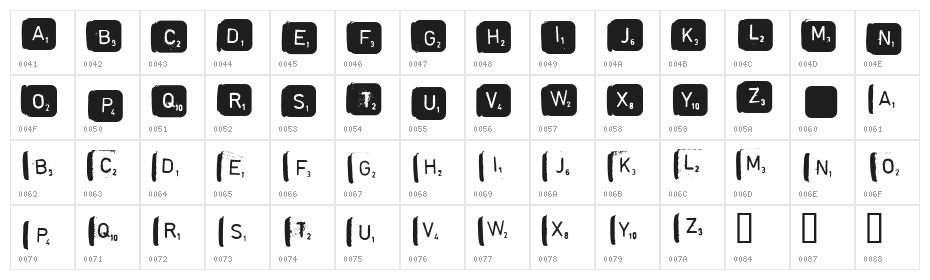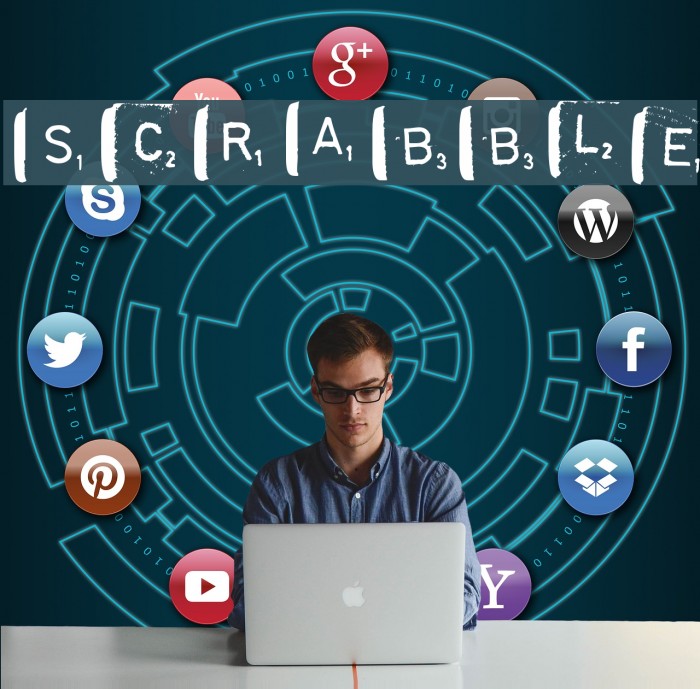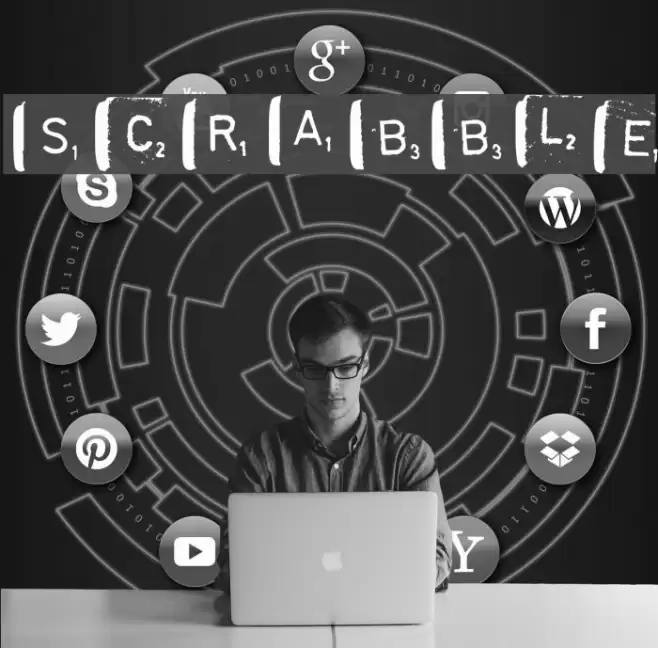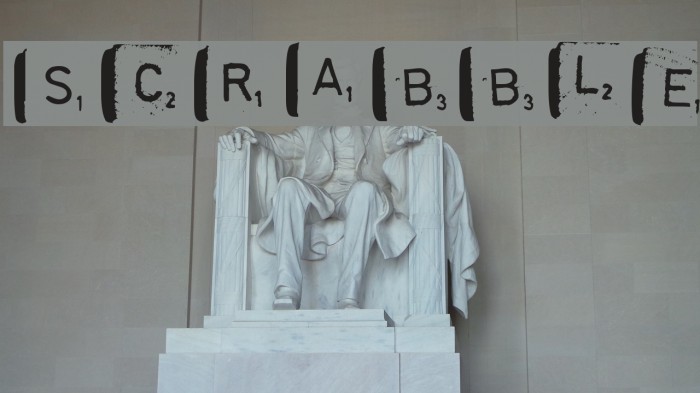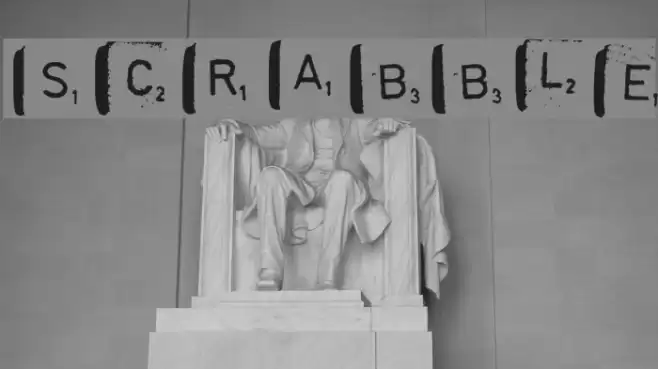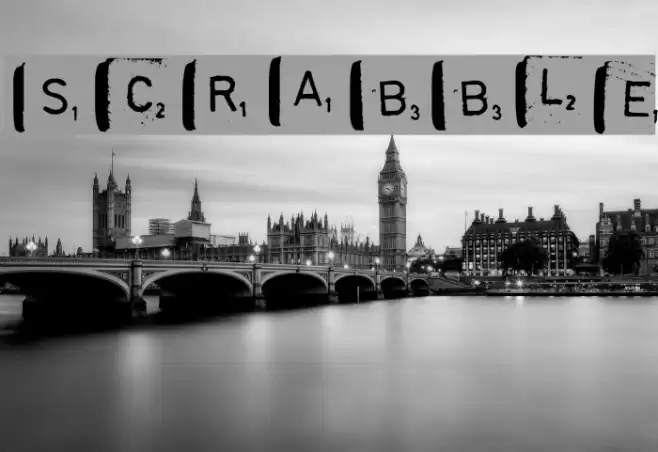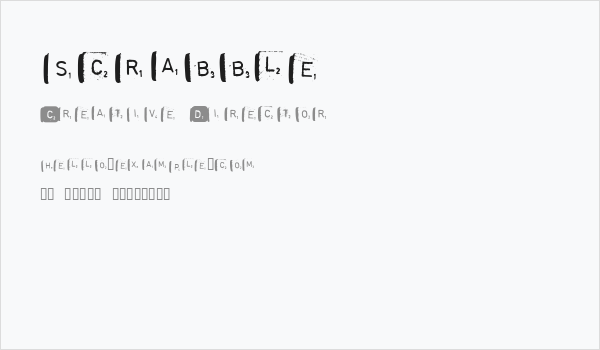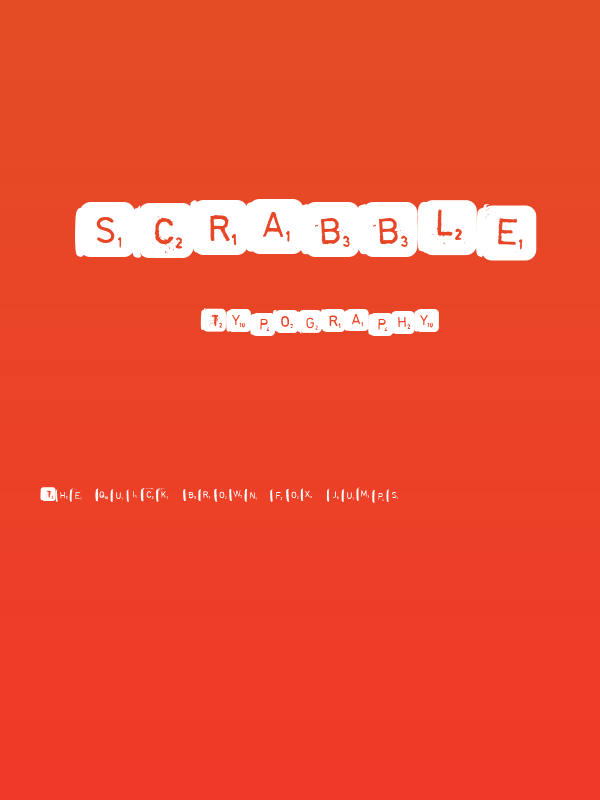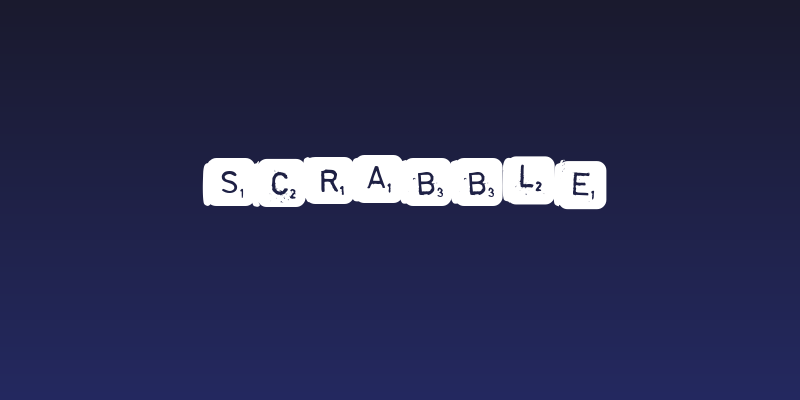
scrabble Font
scrabble Description
This font is inspired by the classic board game tiles, featuring bold, uppercase letters with a distinct, playful style. Each character is enclosed in a square, reminiscent of the game pieces, with a number indicating the point value in the bottom right corner. The design is clean and straightforward, with a touch of nostalgia, making it ideal for projects that aim to evoke a sense of fun and familiarity. The characters are evenly spaced, ensuring readability and a balanced appearance. The font's unique style makes it suitable for creative and playful applications.
Overall StylePlayful, Nostalgic
Proposed ProjectsIdeal for game-themed designs, educational materials, playful branding, and creative posters.